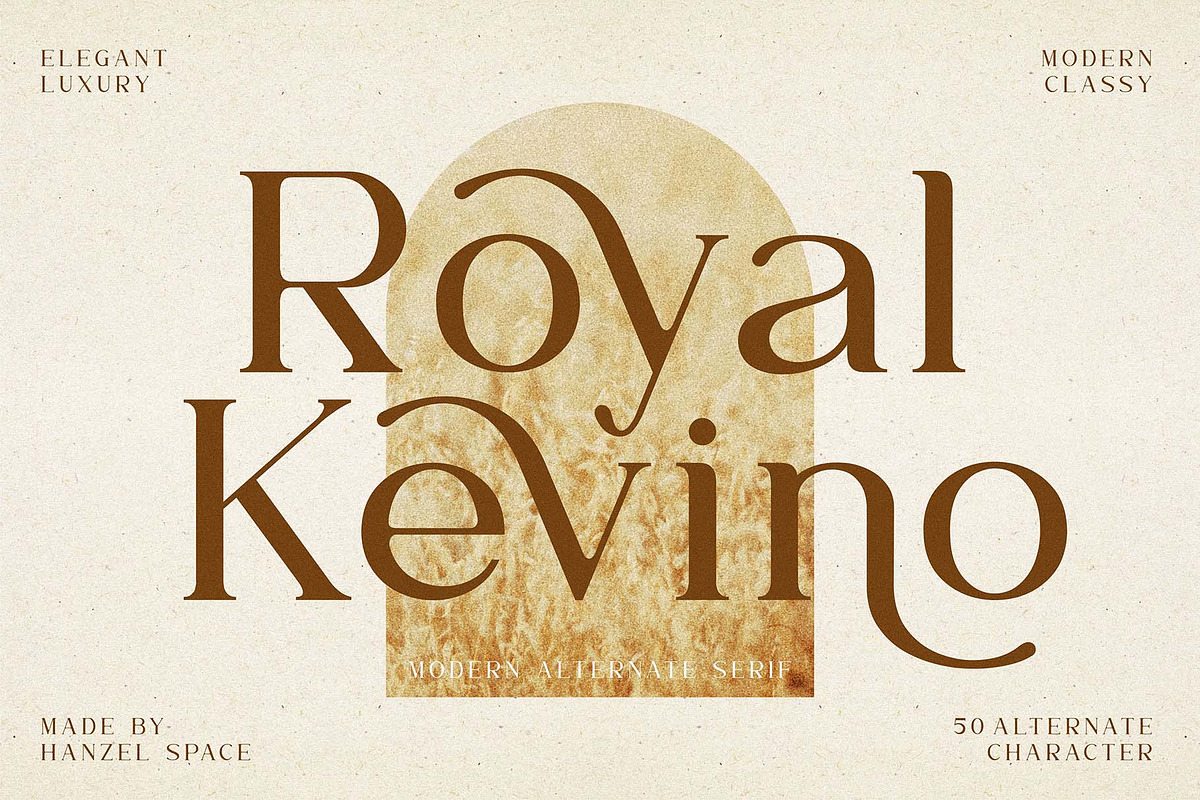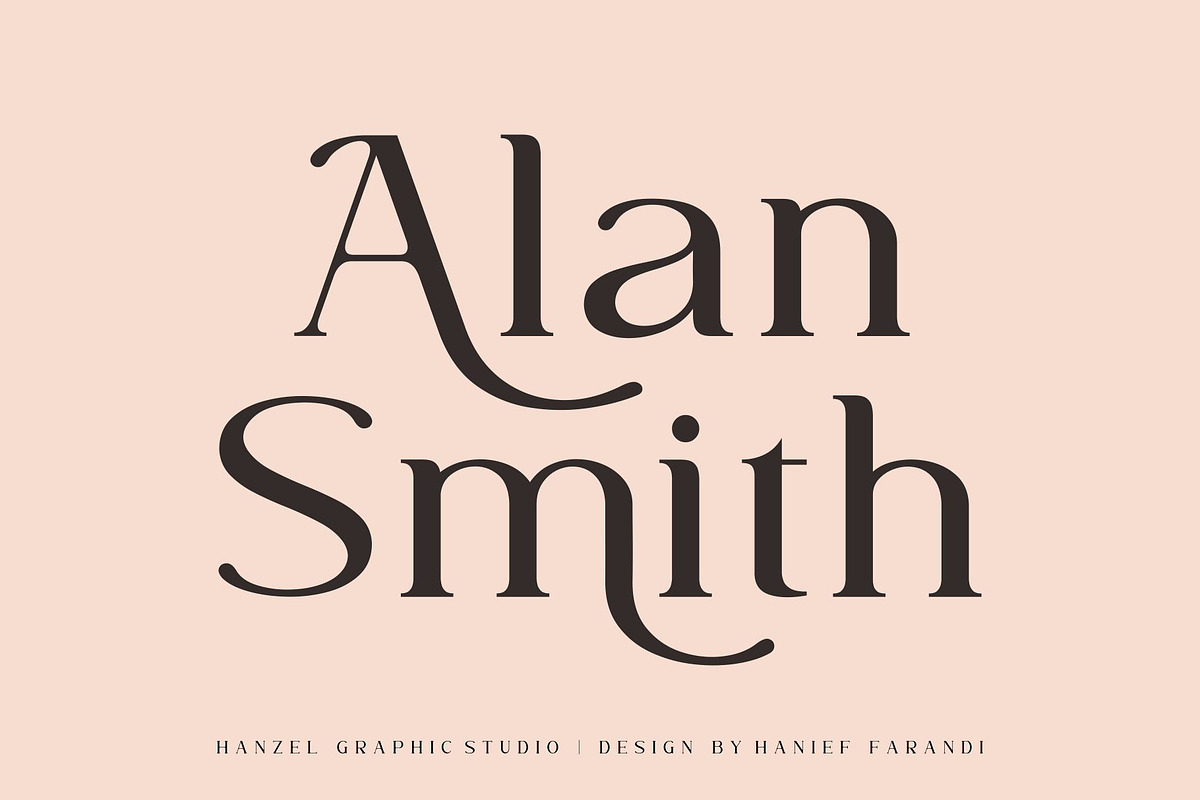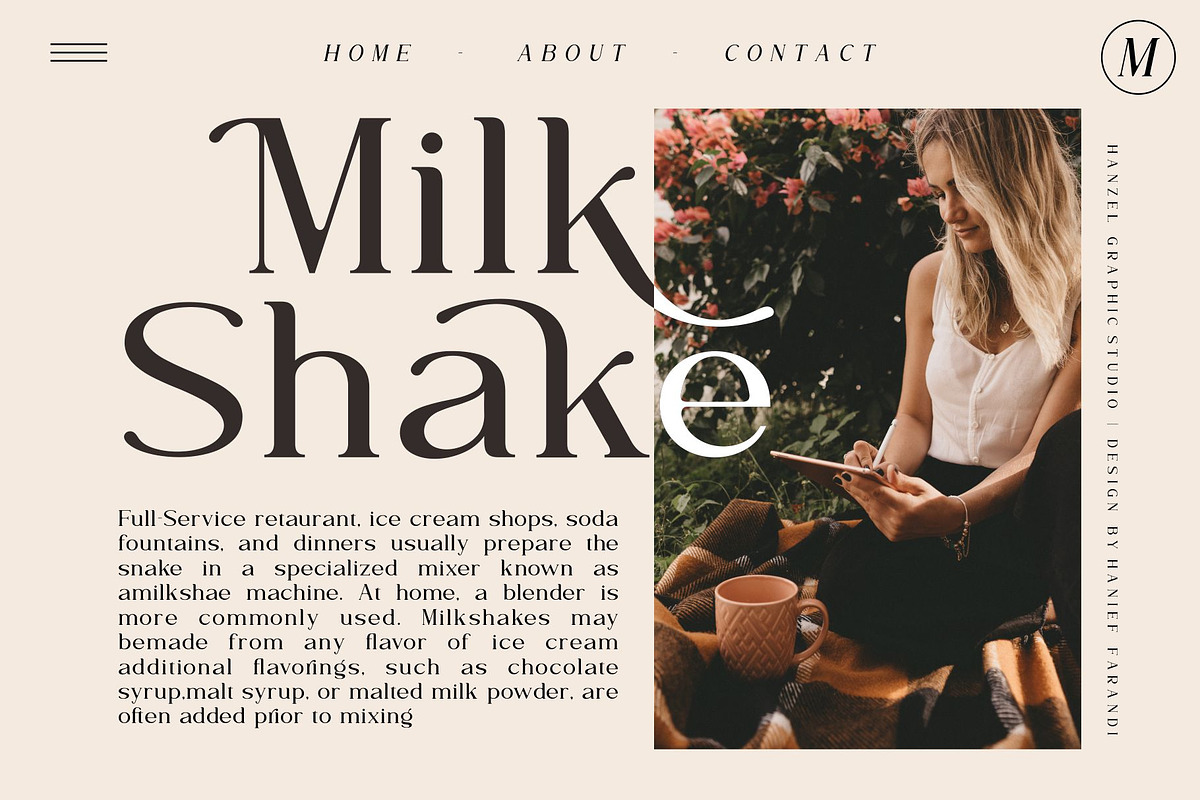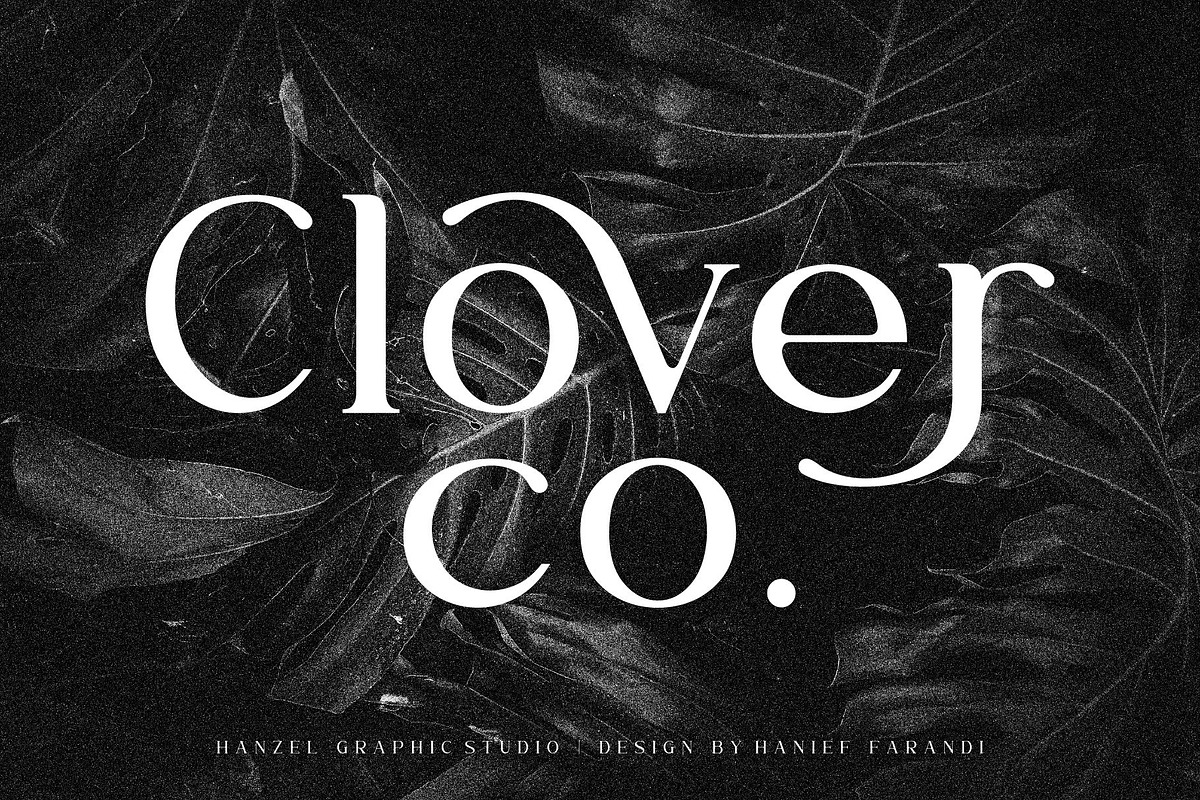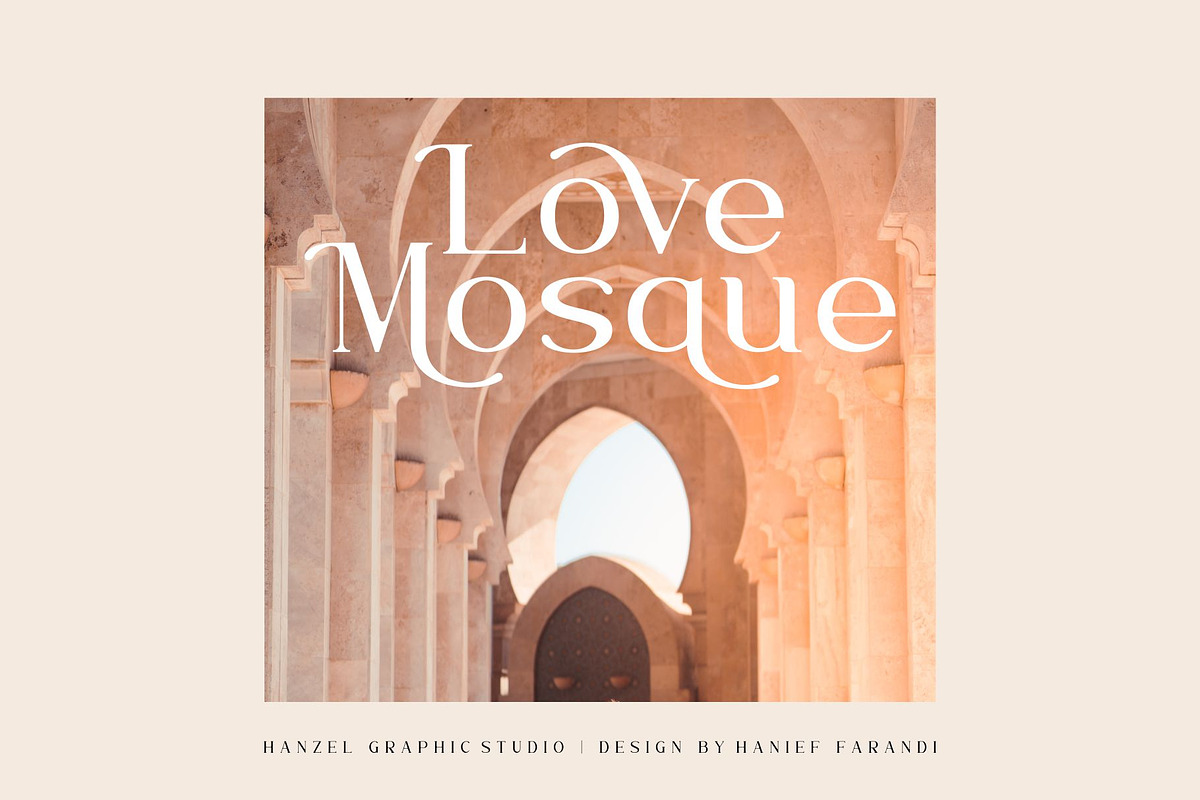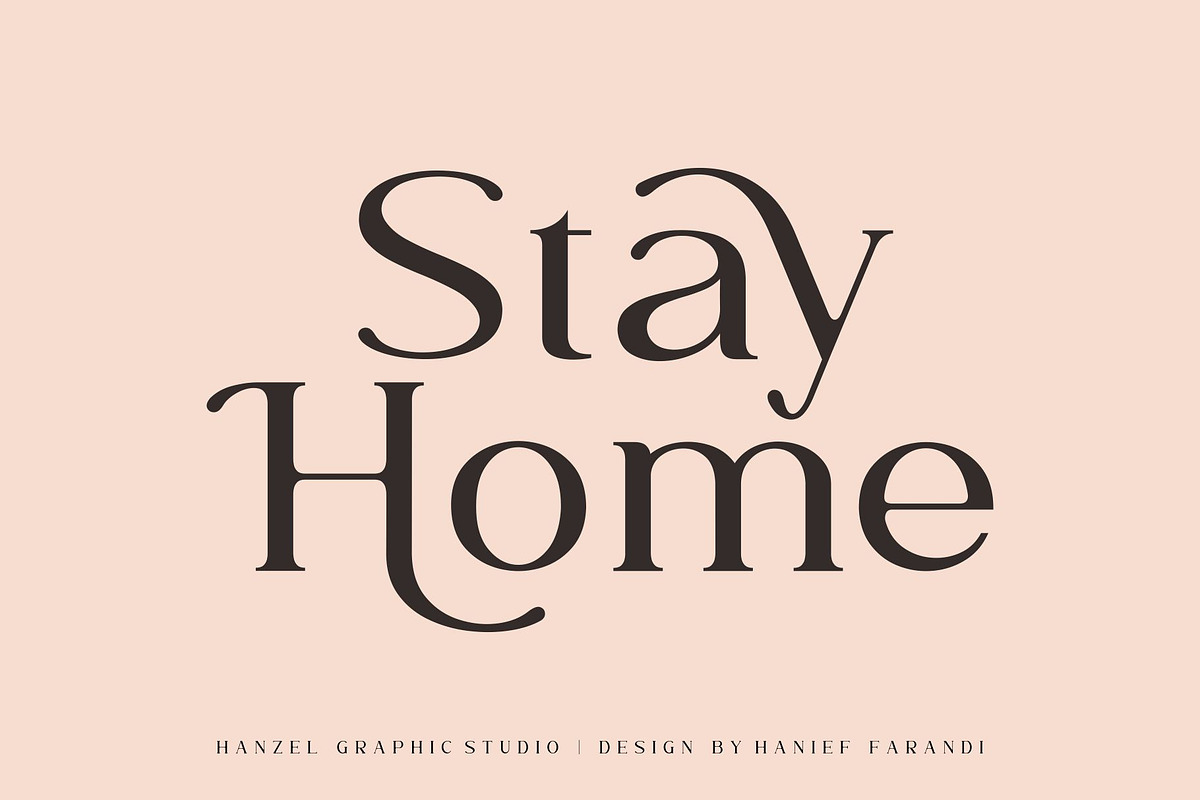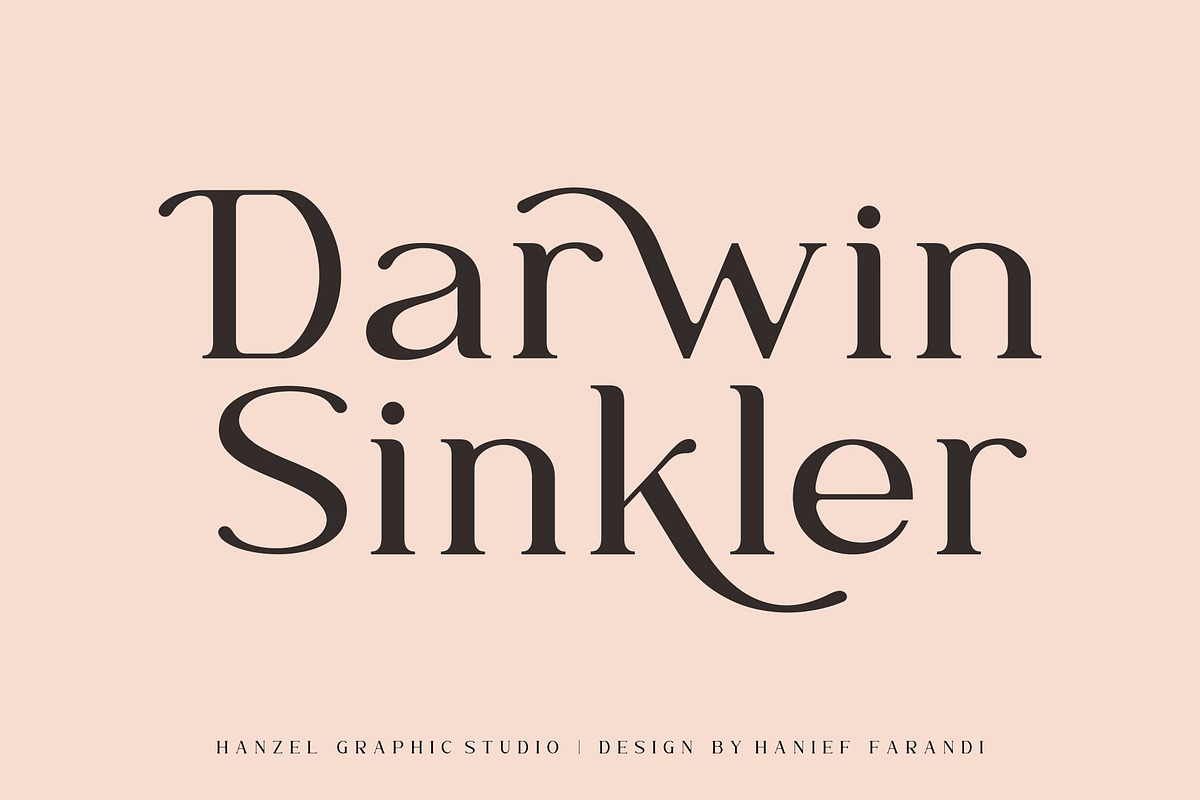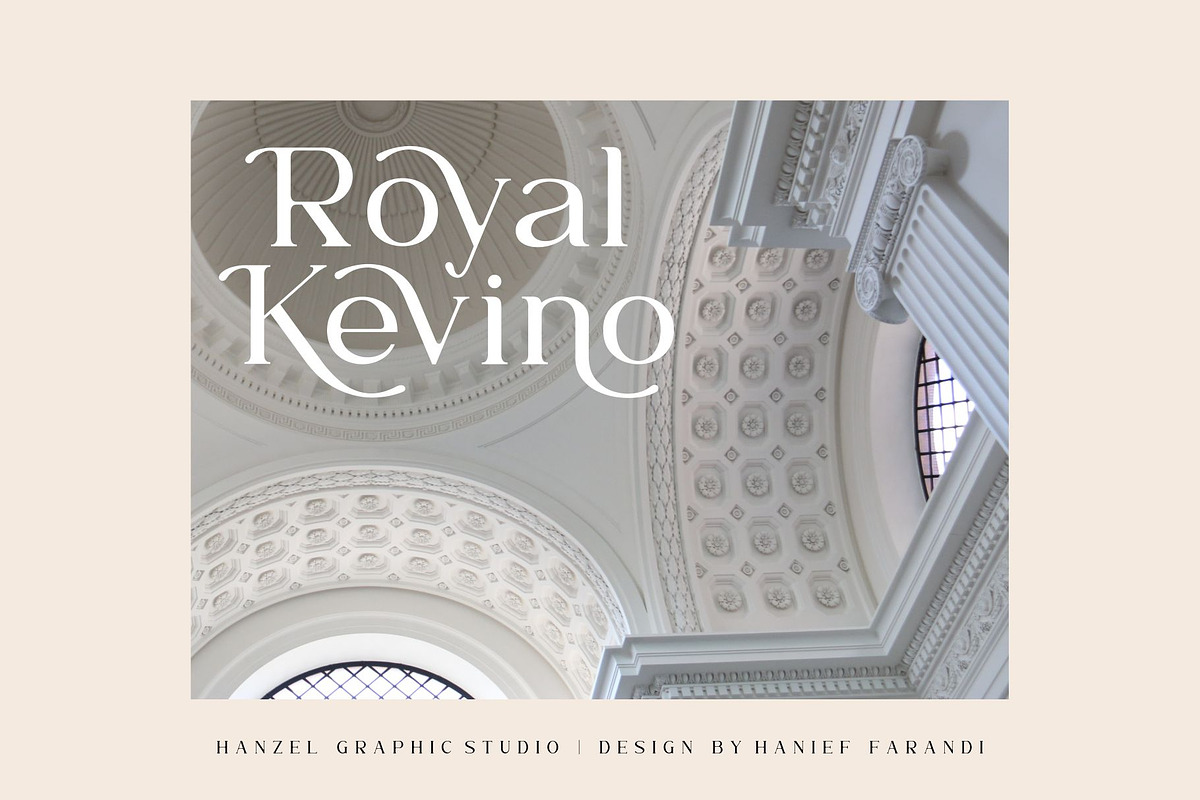
Royal Kevino - Serif Font
This modern serif typeface features serifs. Perfect for gorgeous logos & titles, Royal Kevino will pair beautifully with many fonts and work well with whatever project you're working on.
Containing full set of punctuation and numerals
Include Alternate, Swash & stylistic set Typeface.
An broader version of the font for a Royal Kevino different feel.
Royal Kevino - Serif Font by HanzelSpace Studio fits naturally into Branding, posters, packaging, typography.